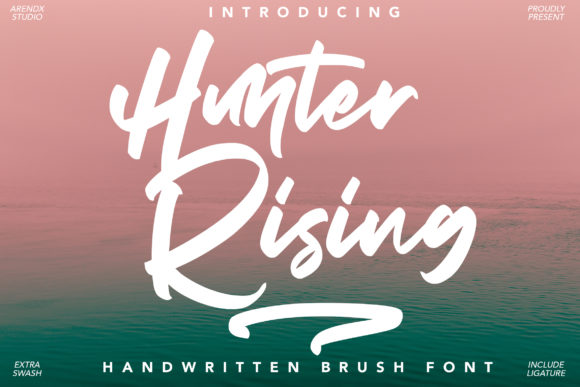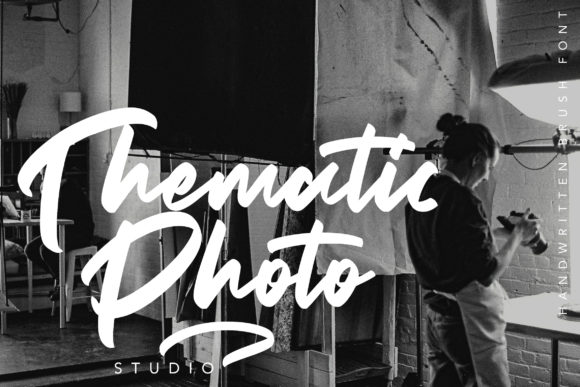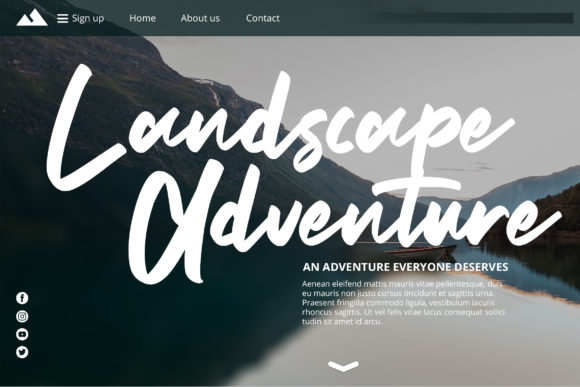
About Hunter Rising Font
Hunter Rising is a beautiful and brushed handwritten font. It is the best choice for creating eye catching logos, branding and quotes. Every letter has a unique and beautiful touch, which will make your design come alive!